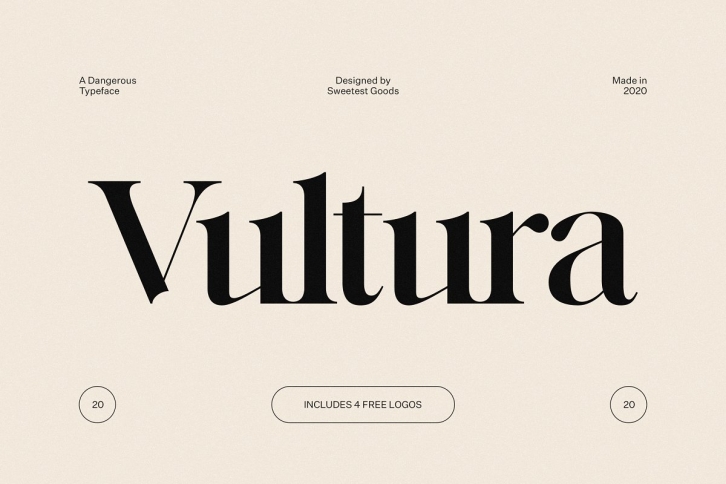
Vultura – A dangerous typeface with multilingual support, ligatures, and 4 free logo templates.
Vultura is a beautiful beast with an eccentric spirit. This razor-sharp typeface adds an elegant, lavish flair to any design. Inspired by old-style serif fonts from the Victorian era, Vultura features exaggerated elements and delicate hairlines for maximum contrast and a classic aesthetic.
Use this display font for elegant branding, magazine design, logo design, headlines, posters, packaging, cards or your wedding invitation.